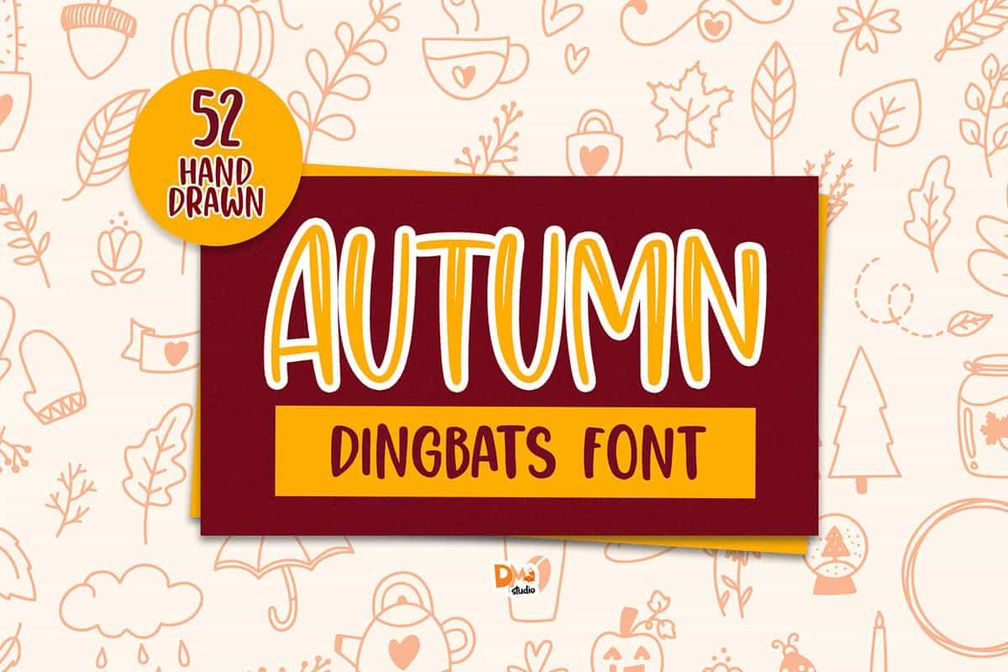
Autumn Dingbats Font
Embrace the fall spirit with the Autumn Dingbats font. Download these seasonal symbols for free Personal Use and bring a touch of coziness to your autumn-themed projects. Perfect for cards, banners, and more.
The Autumn Dingbats Font is a delightful and versatile typeface that brings the beauty and charm of autumn to your designs. With a collection of autumn-themed symbols and icons, this font allows you to add seasonal flair to your projects, making it perfect for greeting cards, posters, scrapbooking, and other creative endeavors.
1. Autumn-Inspired Dingbats: The Autumn Dingbats Font is a collection of decorative symbols and icons inspired by the beauty of the fall season. These dingbats include leaves, acorns, pumpkins, apples, and other autumn-related elements that add a touch of seasonal charm to your typography.
2. Versatile Design Elements: These dingbats are versatile and can be used in various design projects to evoke the feeling of autumn. Whether you’re creating greeting cards for Thanksgiving, decorating posters for a fall festival, or adding a seasonal touch to your scrapbook, these design elements will help you capture the essence of autumn.
Capture the beauty and warmth of autumn in your designs with the Autumn Dingbats Font. Let the collection of seasonal symbols and icons help you create greeting cards, posters, and scrapbooking projects that reflect the coziness and charm of the fall season. Add a touch of autumn magic to your creative endeavors with this versatile and delightful font.